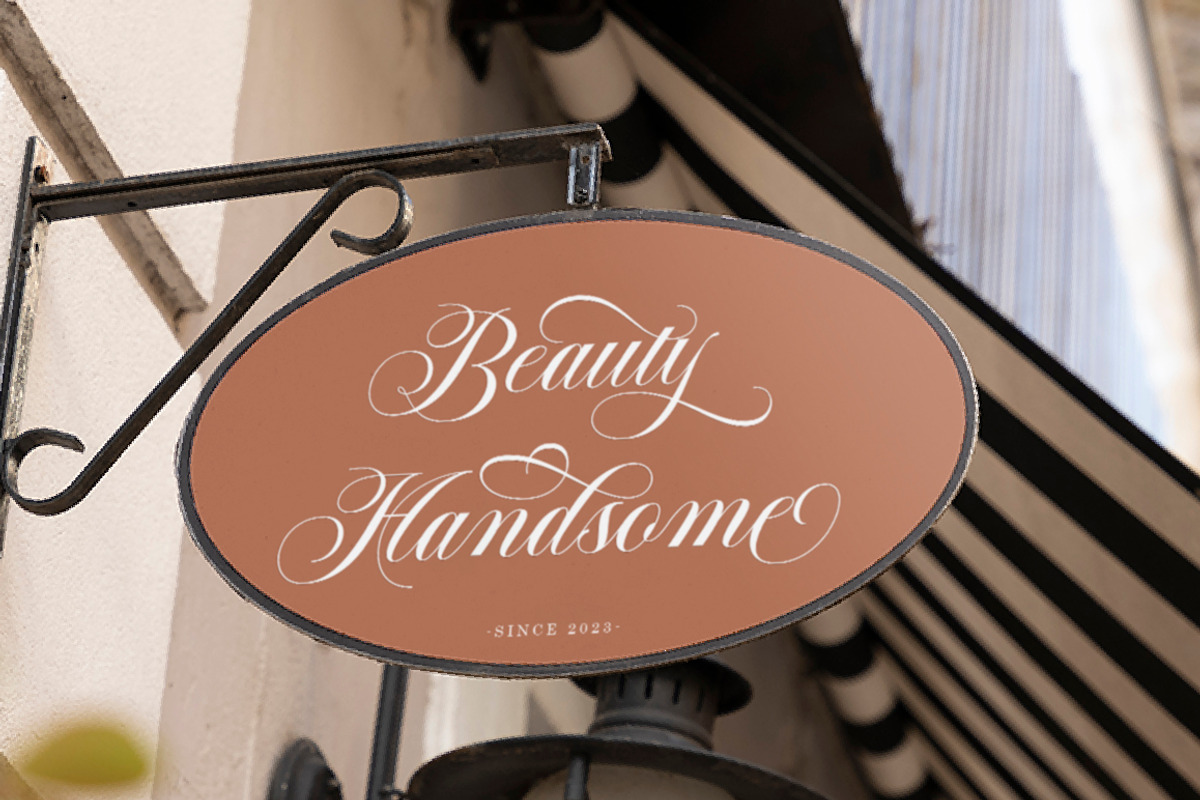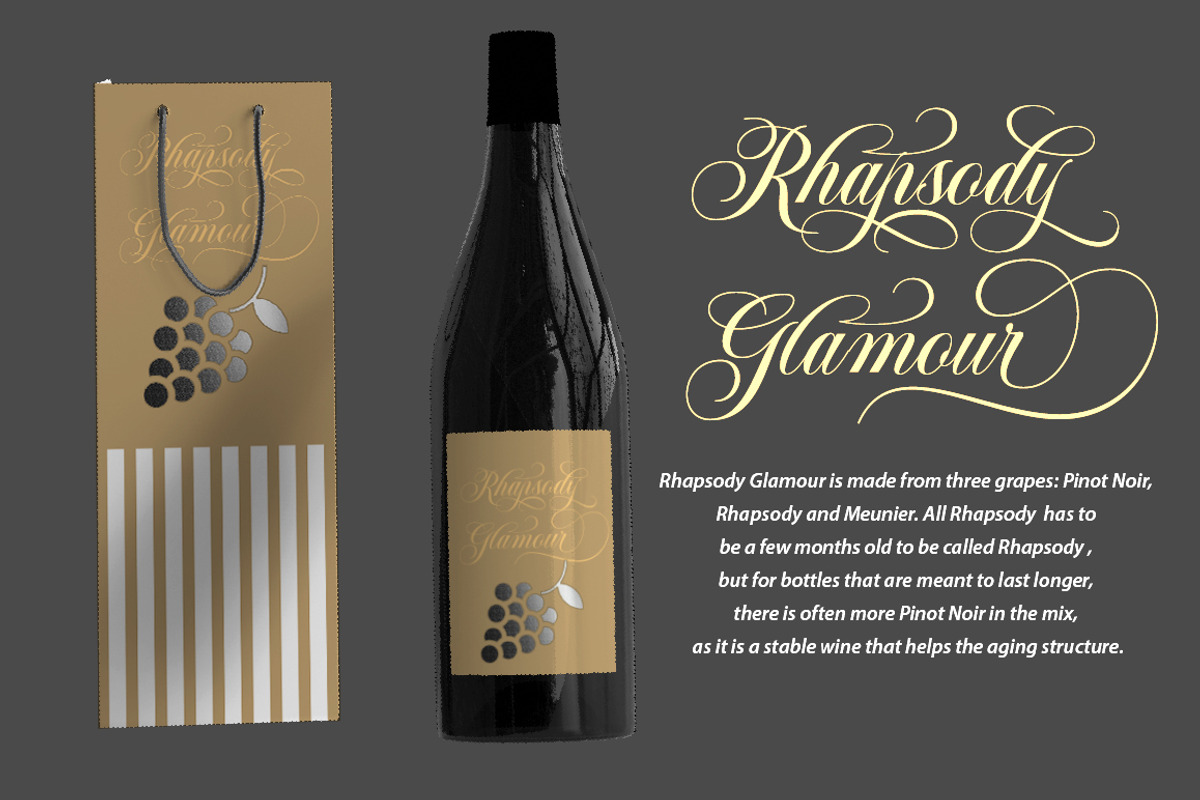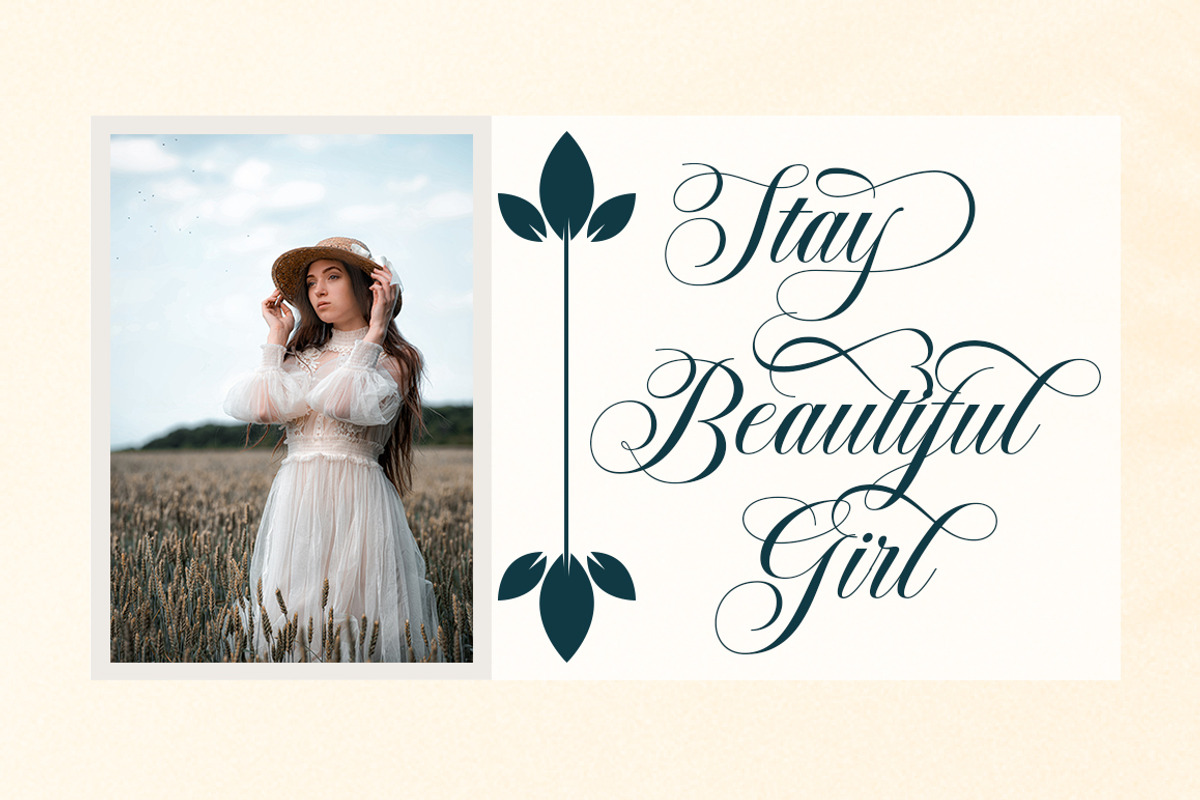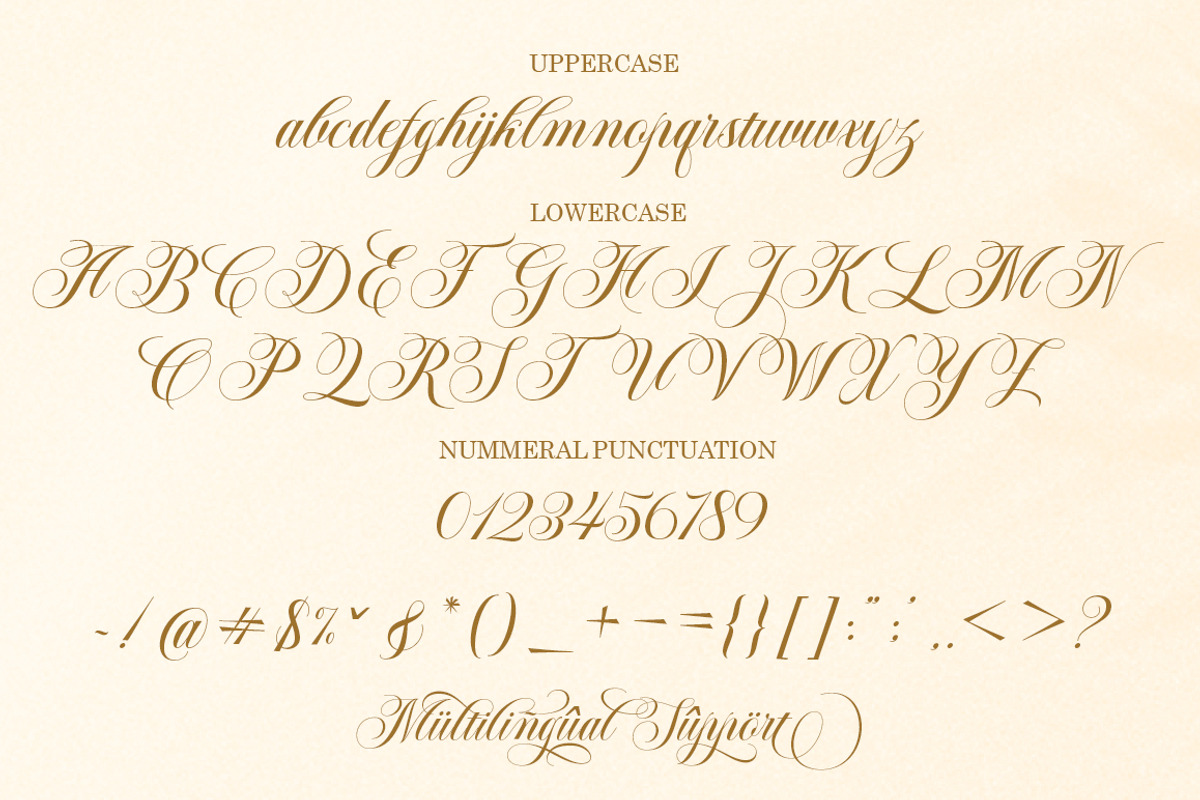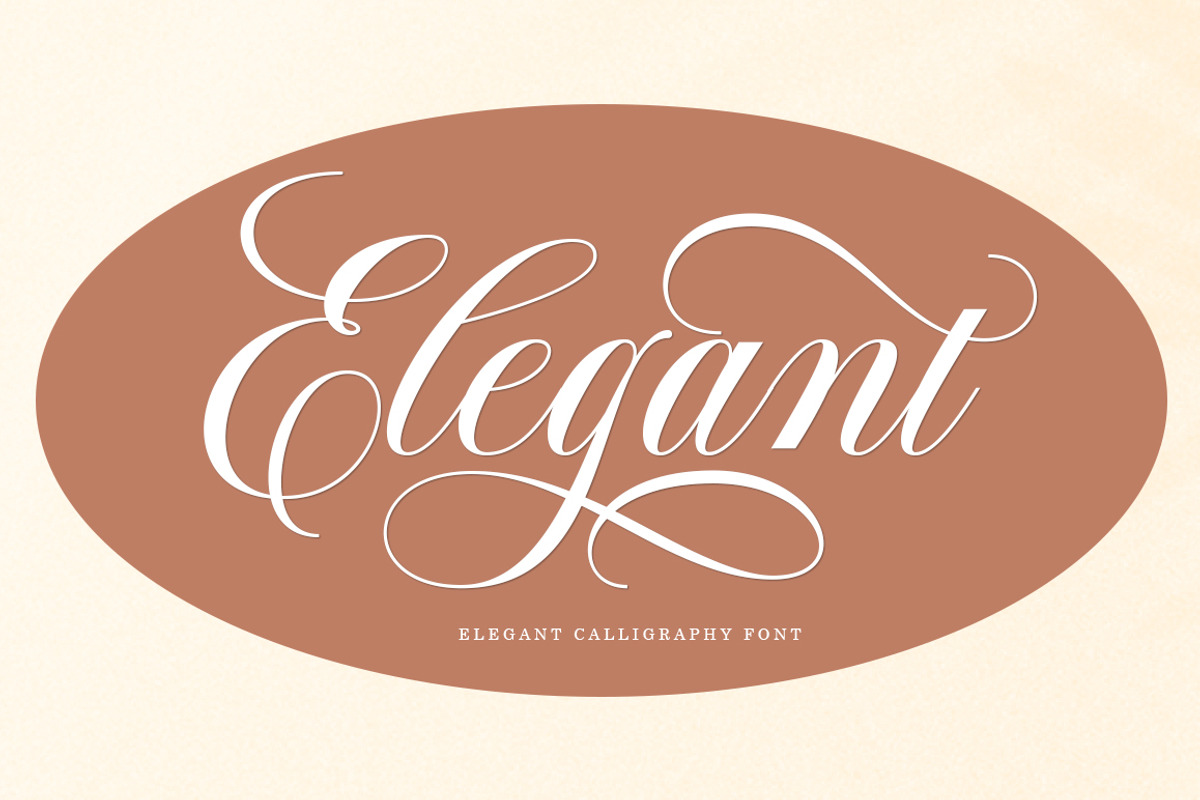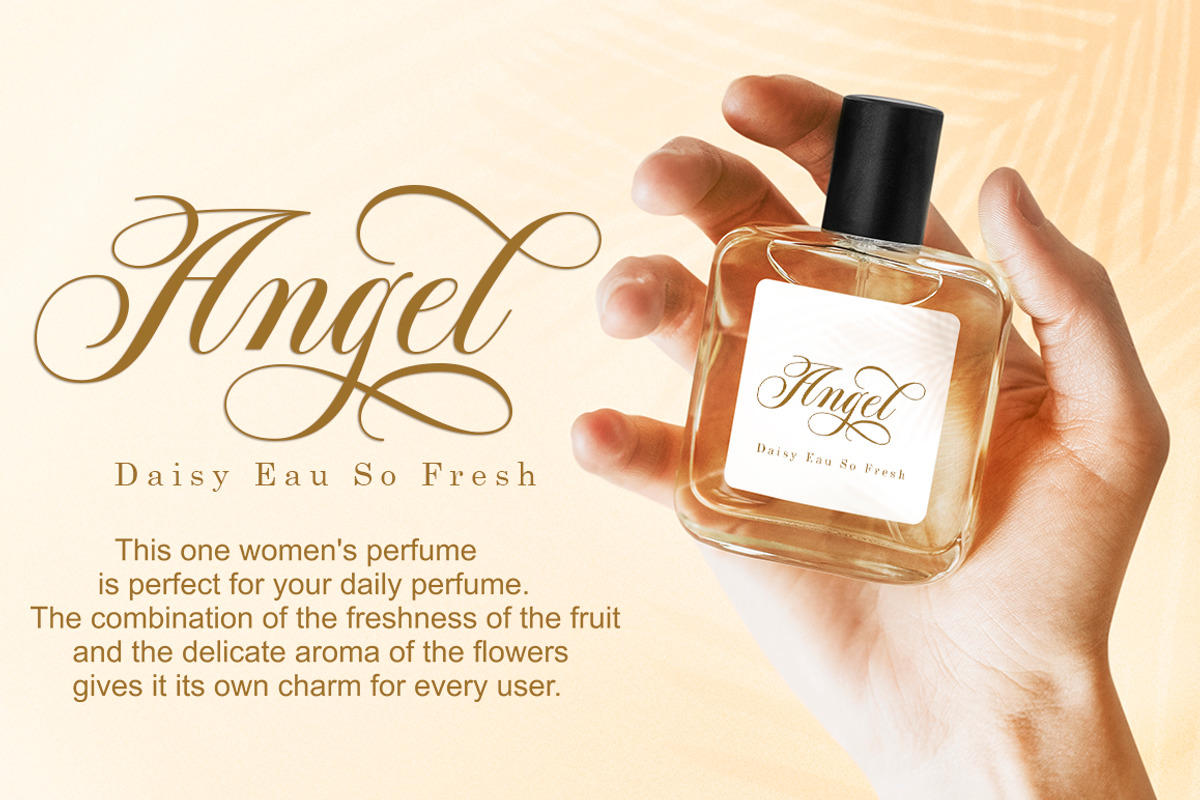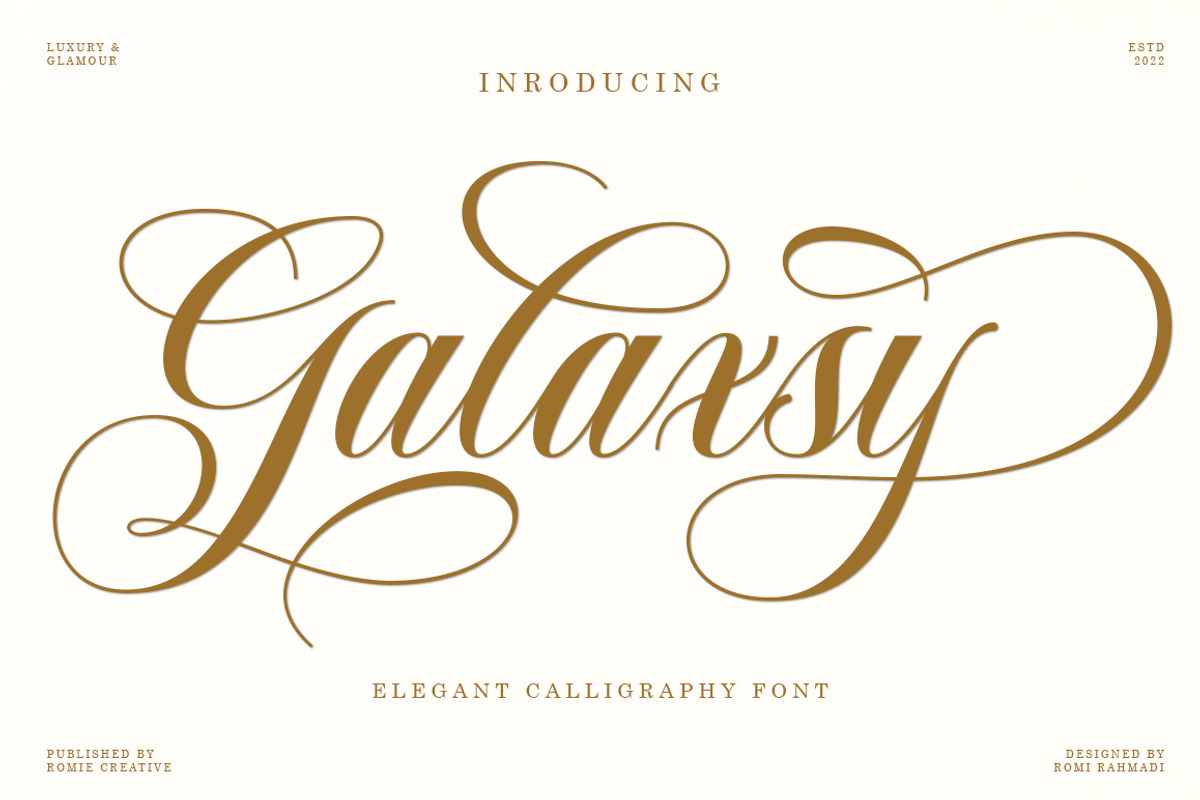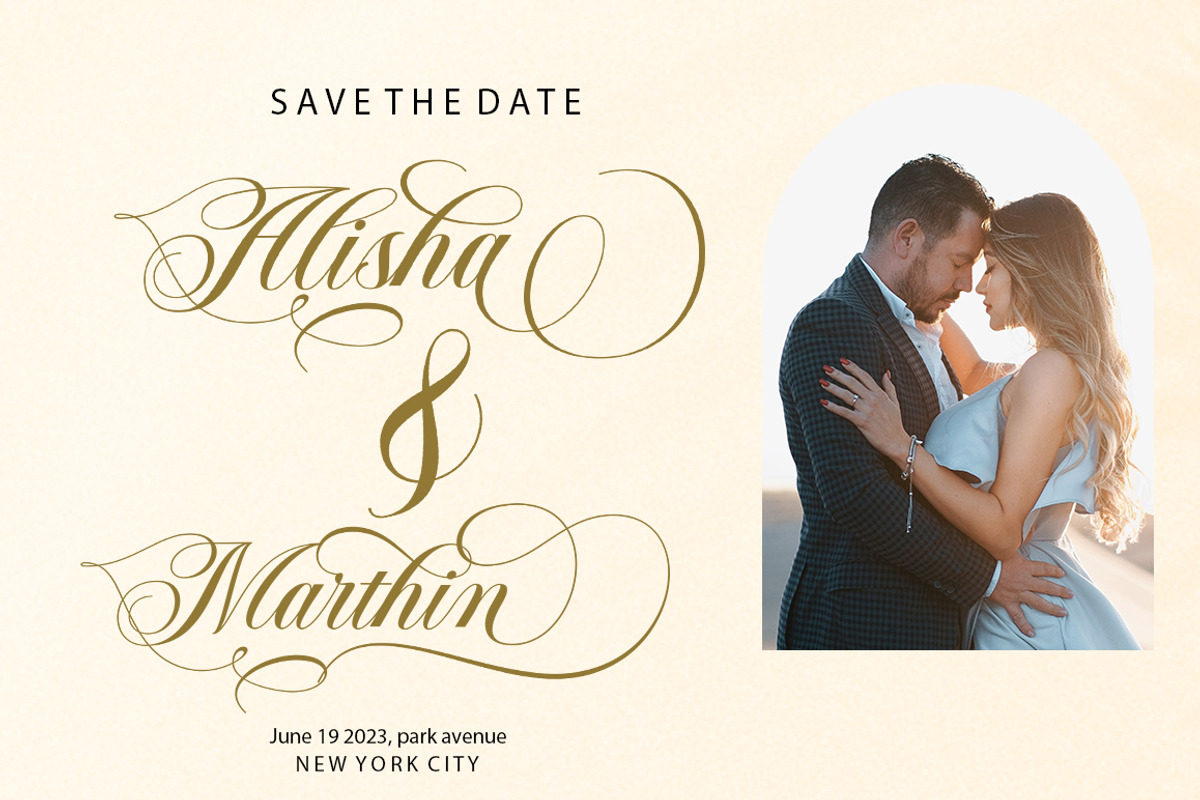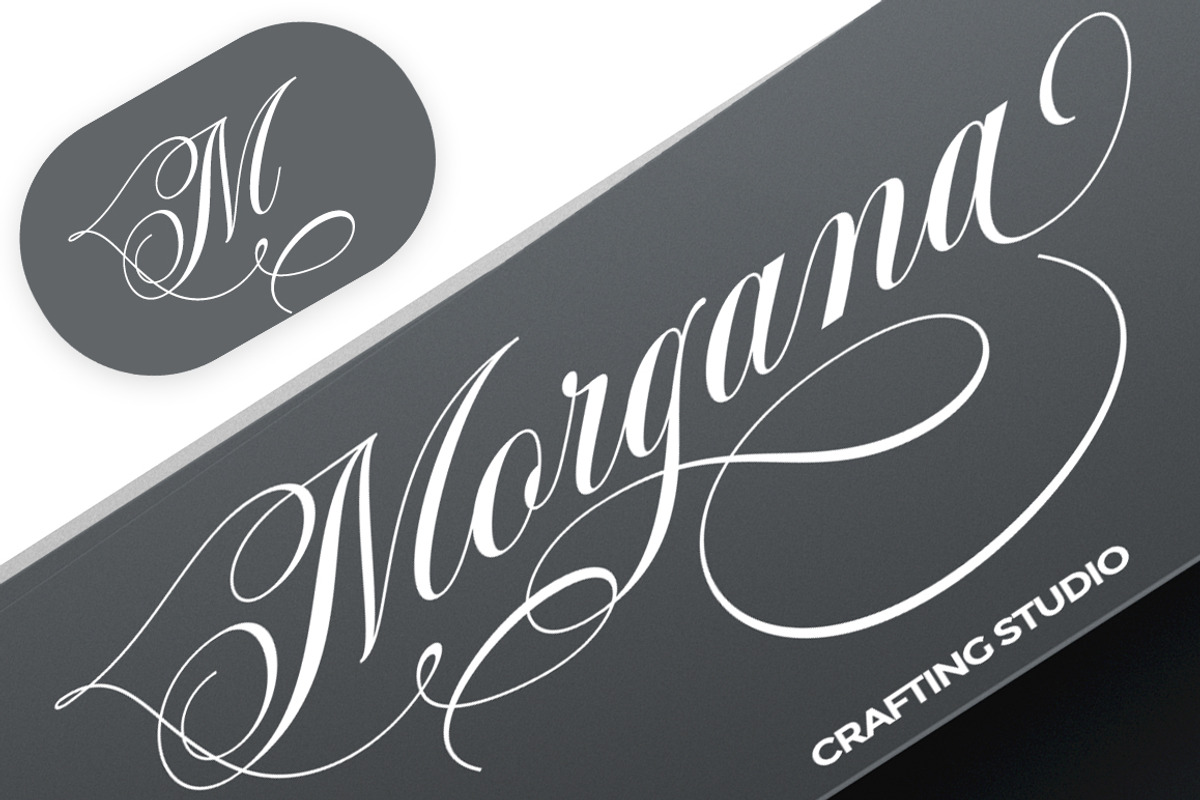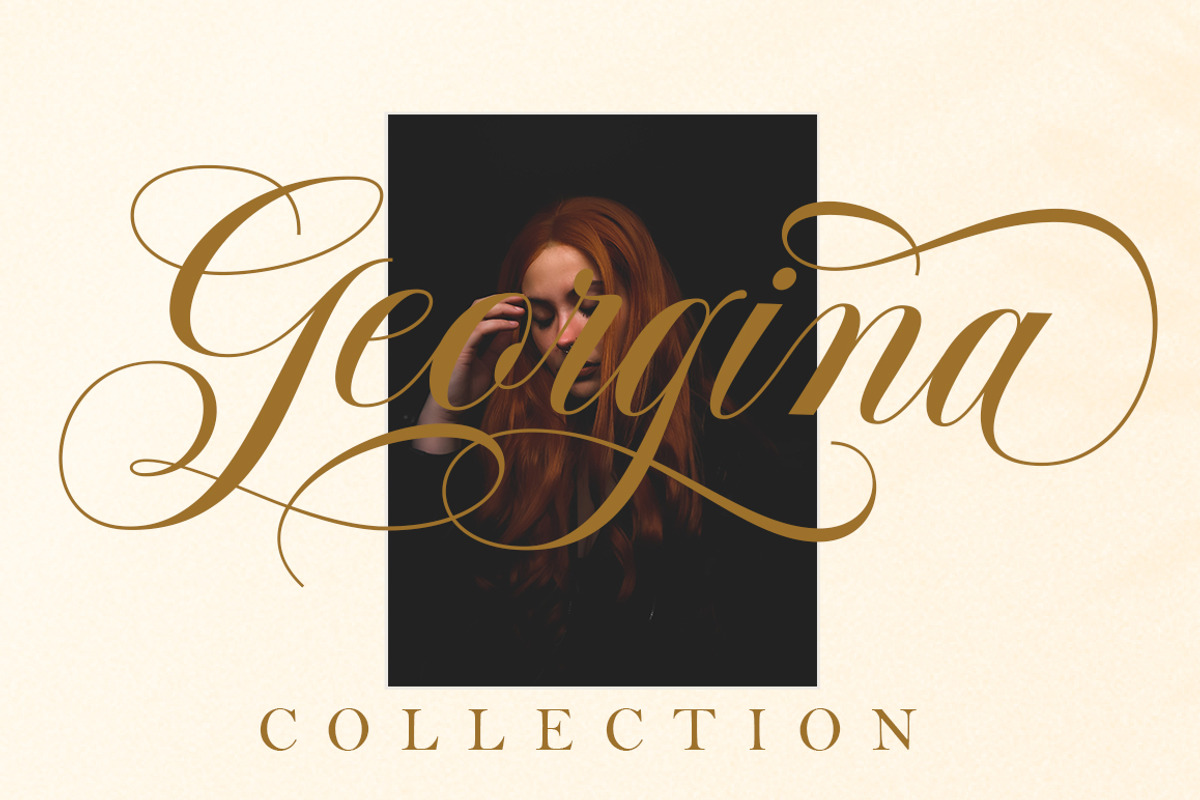
Galaxsy Script
Galaxsy Script is a calligraphy script font that comes with exquisite character changes, a kind of classic decorative copper script with a modern twist, designed with great detail to bring out a stylish elegance.
Galaxsy Script appeals as a typeface that is smooth, clean, feminine, sensual, glamorous, simple and very easy to read, a luxurious typeface. The classic style is very suitable to be applied in various formal forms such as invitations, labels, restaurant menus, logos, fashion, make up, stationery, novels, magazines, books, greeting/wedding cards, packaging, labels or all kinds of advertisements. destination.